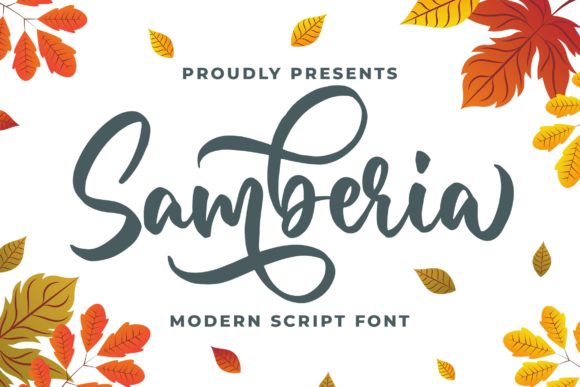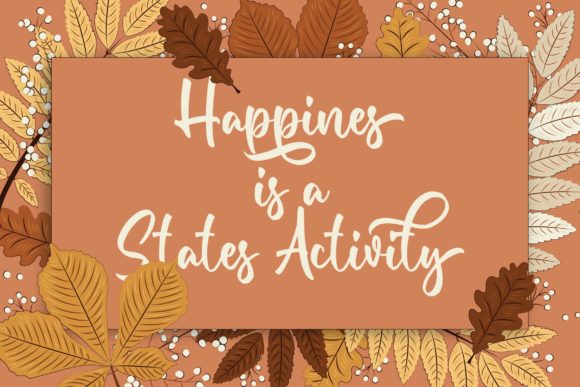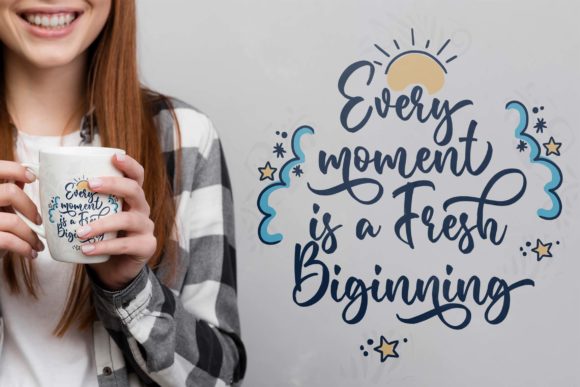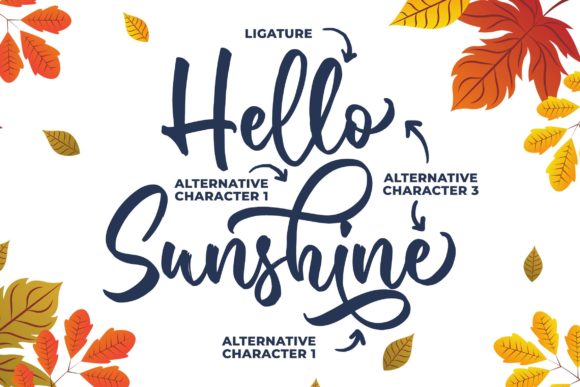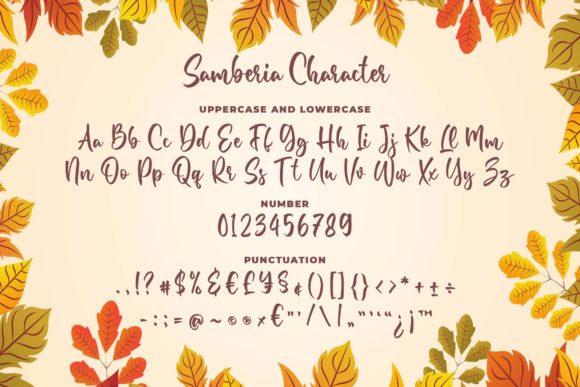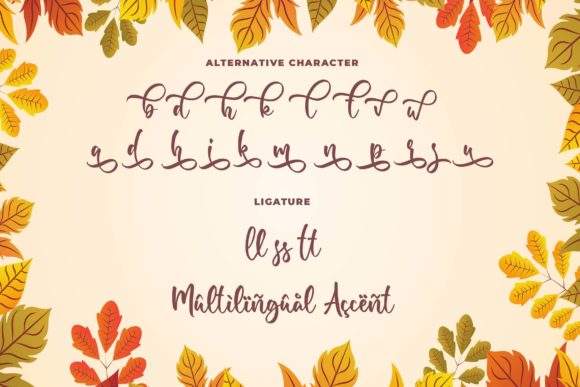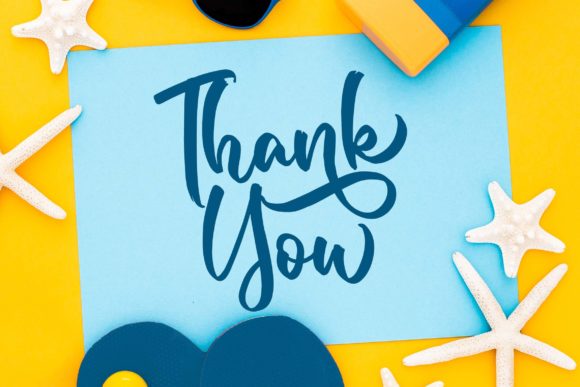
Samberia Font
About Samberia Font
Samberia is a sweet, round lettered handwritten font, designed with the help of an outstanding brush pen. Fall in love with its incredibly versatile style and use it to create gorgeous wedding invitations, beautiful stationary art, eye-catching social media posts, and much more!